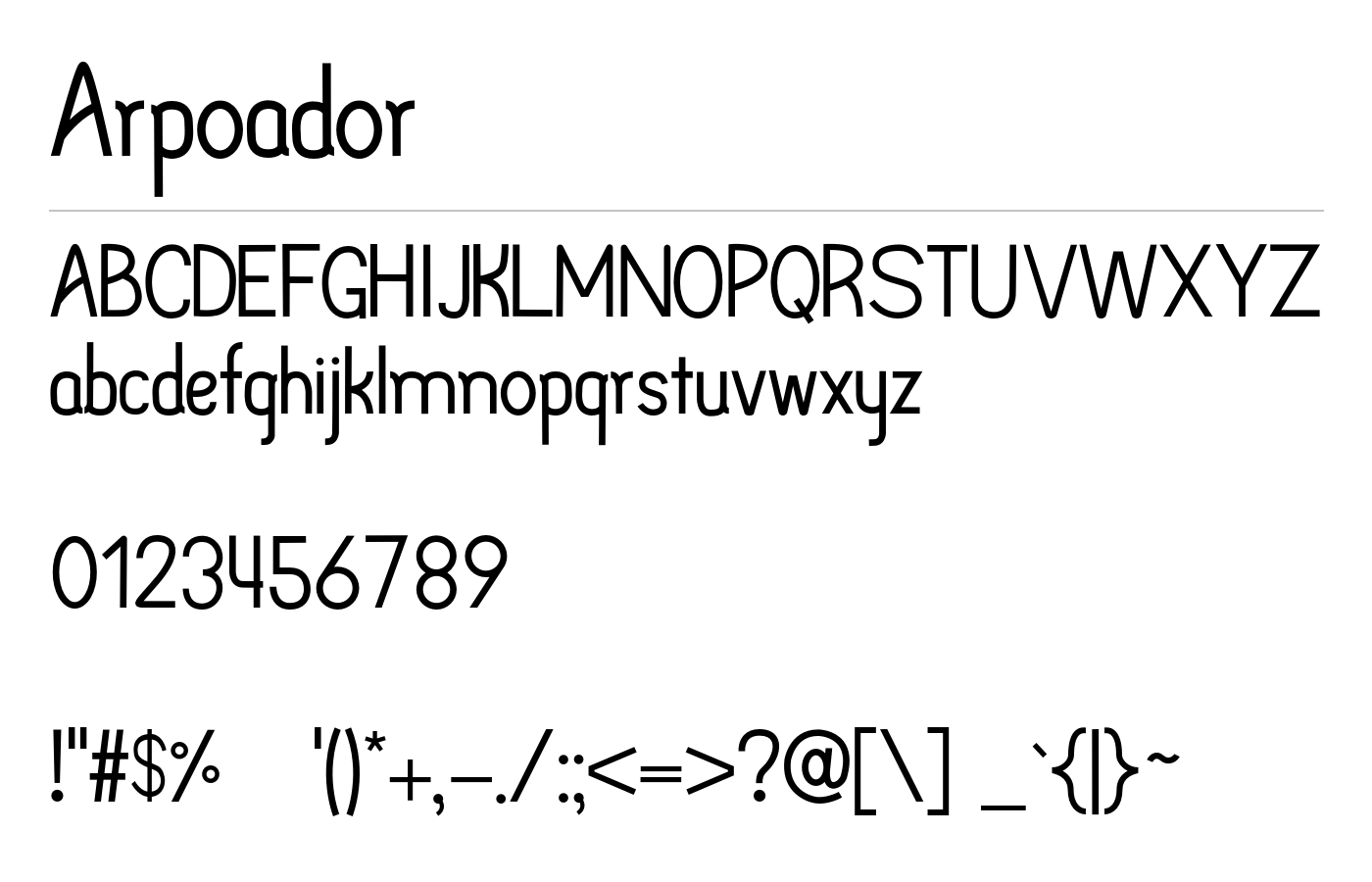
Arpoador is a distinctive sans serif font characterized by its tall, narrow letterforms and playful, hand-drawn feel. With its light weight and unique, slightly irregular shapes, it exudes a quirky and friendly personality, making it perfect for creative projects, headlines, logos, and branding that seek a modern yet approachable look. This font stands out in designs that benefit from a touch of charm and individuality without sacrificing readability.
Arpoador Font
About Arpoador Font